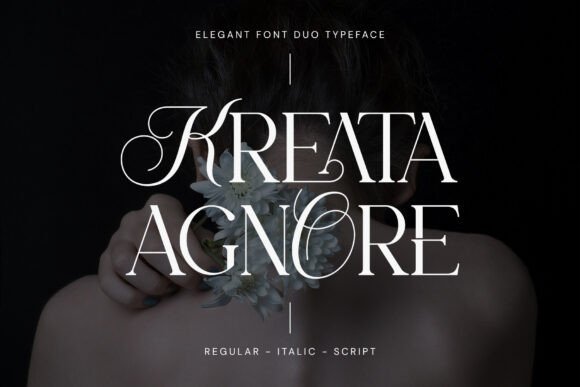
25 Stunning Classy Fonts for Luxury Brand Packaging 2026
Looking for classy fonts for a luxury wedding invite? This collection of 25 classy fonts covers serif, script, and modern faces suited to elegant invitation suites.
Each font entry includes a sample, mood notes, suggested pairings, and licensing details so you can match type to layout, monograms, and envelope addresses. Quick filters make it simple to sort by serif, script, or sans families.
1. Riclose Duo Font
Riclose Duo Font
Riclose Duo Font – Riclose Duo pairs a restrained serif with a flowing script so you get two complementary styles in one package. Both faces are PUA-encoded, so glyphs and ligatures are easy to access and apply across logos, wedding invitations, social posts, advertising and product art. If you like polished letterforms that read well at display sizes, Riclose Duo is a tidy example of how classy fonts can balance formality with hand-drawn warmth.
The serif offers crisp contrast and consistent proportions while the script supplies motion through generous alternates and swashes. Kerning and OpenType features are thoughtfully set up, which speeds layout work when composing monograms or headline/subhead pairings. I reach for Riclose Duo when a design needs refined presence without feeling stiff-boutique branding, editorial mastheads and upscale packaging all benefit.
My Recommendation: I use Riclose Duo when a project needs both authority and personality: the serif anchors the design while the script injects a handcrafted touch. The PUA encoding makes stylistic sets and ligatures immediately accessible in common design apps, cutting setup time. Best suited for wedding suites, boutique marques, and premium product labels where a matching script/serif voice adds cohesion.
2. Classy Bundle Vol. I Font
Classy Bundle Vol. I Font
Classy Bundle Vol. I Font – Classy Bundle Vol. I gathers retro display faces with refined serif and script options to cover a broad range of nostalgic-to-elegant looks. The set includes display weights, decorative alternates and serif cuts that work for logotypes as well as posters and packaging. Files ship in common formats with OpenType features, so swapping stylistic sets and ligatures is straightforward without rebuilding layouts. This range lets designers pair a period headline with a cleaner serif subhead to create compelling contrast.
For identity work the bundle is useful because you can audition different period references quickly, from mid-century character to quiet refinement. Pay attention to spacing when using heavy display faces at small sizes and favor the serif cuts for longer text blocks. Pair decorative elements from the bundle with a neutral sans in digital contexts to preserve legibility while retaining graphic personality.
My Recommendation: I keep this bundle in my toolkit when clients ask for retro charm with a polished finish-it’s fast to test multiple voices without sourcing individual licenses. The mix of display and text-friendly serifs handles posters, labels and social campaigns equally well. Ideal for packaging, hospitality branding and editorial spreads that benefit from a period touch paired with readable copy.
3. Koela Font
Koela Font
Koela Font is a modern serif built with playful stylistic alternates and a useful set of ligatures that soften its formal structure. Its letterforms show modest contrast and gentle terminals, which give headlines a romantic, slightly whimsical character while remaining legible. Designers will appreciate how single-character alternates can shift the tone from restrained to expressive with a few keystrokes.
Koela performs well for fashion editorials, boutique identities and wedding stationery where type needs personality at display sizes. For extended text, pair Koela with a neutral sans or a simpler serif to avoid reader fatigue and maintain rhythm. The family’s spacing and weight choices also print cleanly, making it a reliable option for both web headlines and letterpress-ready pieces.
My Recommendation: I pick Koela when a project asks for a serif with distinct personality but not a heavy-handed look-its alternates let me introduce flair without custom lettering. It saves time over commissioning bespoke marks while still delivering memorable typographic flavor. Great for magazines, lookbooks and boutique brand work where headlines need to stand out.
4. Elegant Fashion Font
Elegant Fashion Font
Elegant Fashion Font reads like a polished editorial serif built for attention: refined serifs, a controlled contrast, and smooth curves give it the clarity of a magazine masthead while still feeling delicate. Its letterforms balance narrow and open counters, producing elegant display lines that carry well across logos, covers, and premium packaging. Designed with careful spacing and consistent stroke modulation, it favors headlines and short settings where the subtle details matter.
These 25 classy fonts offer a broad range of formal and contemporary styles tailored to wedding stationery. Use the sample images and pairing suggestions to choose a face that fits your invitation mood.